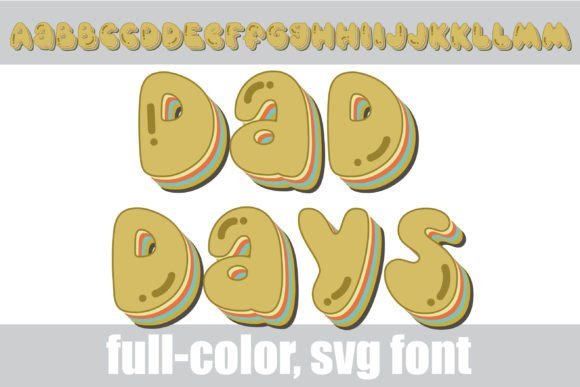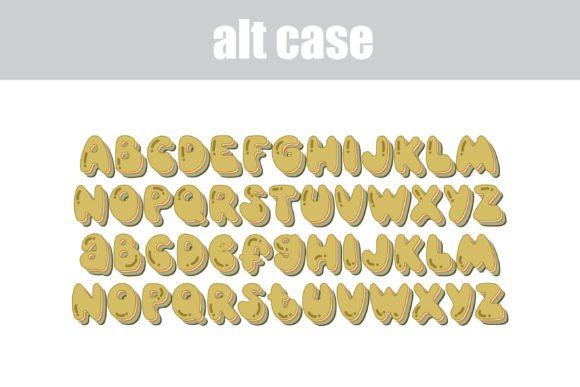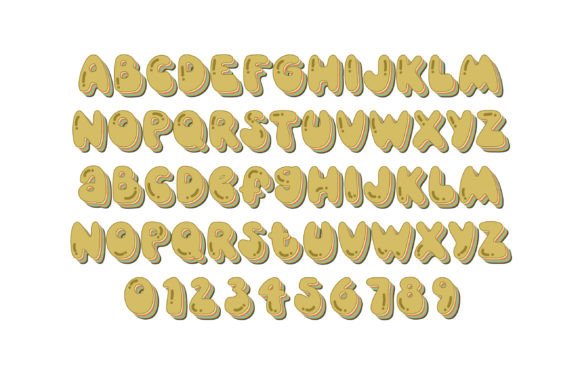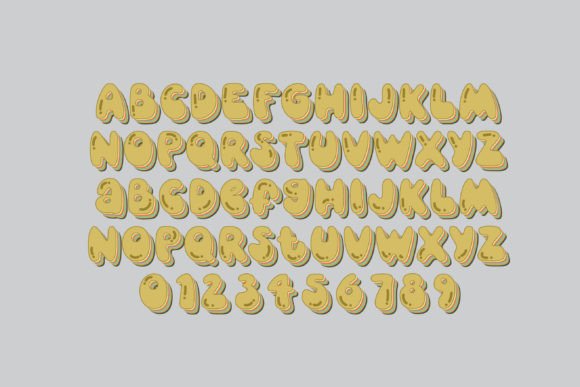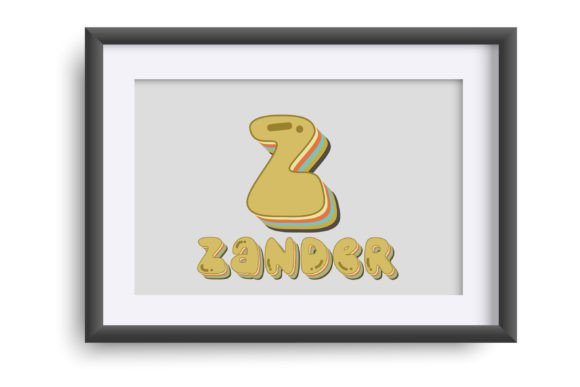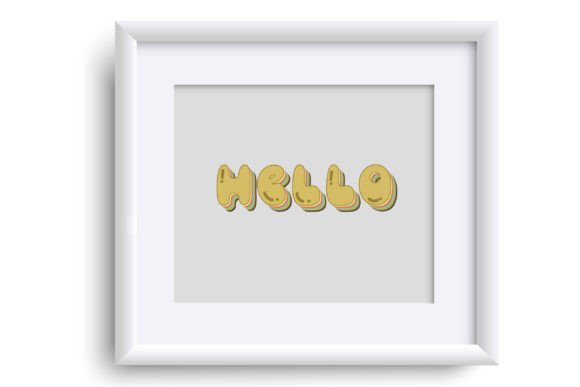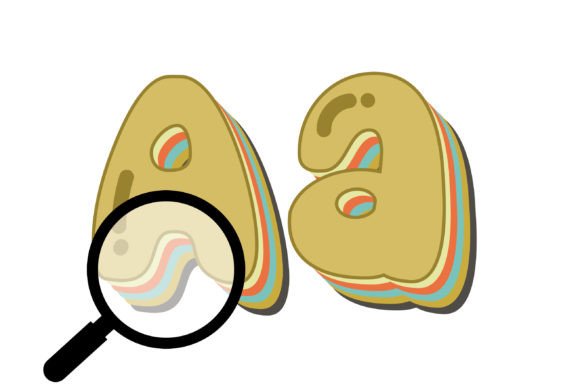
Unleashing Your Inner Dad: The Power of Dad Days Font
Remember the time you spent hours brainstorming the perfect birthday card for your dad? The excitement of creating something special, the struggle of finding the right words, and the satisfaction of seeing that smile on his face. That’s what it’s all about – making memories, one design at a time.
Enter the Dad Days Font, a full-color font that’s perfect for adding a touch of nostalgia and masculinity to your designs. This retro-style font features a bold, vibrant color palette that’s sure to grab attention. With its compatibility with Silhouette Studio and OpenType full-color (SVG) fonts, designers can unlock new creative possibilities for titles, displays, posters, and more. Whether you’re a seasoned pro or just starting out, the Dad Days Font is a valuable addition to your design toolkit.
Dad Days Font Key Features
- Unique Characteristics: This font features a unique, playful design that is perfect for creating fun and engaging content. Its rounded edges and friendly feel make it ideal for use in children’s books, advertising, and other applications where a lighthearted tone is desired.
Dad Days Font Review
I recently had the chance to work with the “Dad Days Font” and I have to say, it’s a unique addition to any design project. Here’s my honest review:
- Quirky and playful vibe: The font has a lighthearted, humorous feel that’s perfect for projects that need a bit of personality.
- Versatility: I was able to use it for both digital and print projects without any issues.
- Easy to read: The font is clear and easy to read, even at smaller sizes.
- Limited font weights: I would have liked to see more font weights available, as the current options can be a bit limiting.
- No italic or oblique: The font doesn’t come in italic or oblique styles, which can make it difficult to create emphasis or contrast.
Overall, I think the “Dad Days Font” is a great addition to any designer’s toolkit. While it may have some limitations, its unique personality and versatility make it a great choice for projects that need a bit of flair.
For best results, use the font in a playful, casual context, such as a social media graphic or a funny meme.
For best results, use the font in a creative, humorous context, such as a cartoon or a comic strip.
For best results, use the font in a fun, lighthearted context, such as a presentation or a report.
Use the Dad Days Font to add a playful touch to your designs, such as:
– Creating funny memes or social media posts.
– Designing cartoons or comic strips.
– Adding a humorous touch to presentations or reports.
Remember to use the font in moderation and balance it with other design elements to avoid overwhelming the viewer.